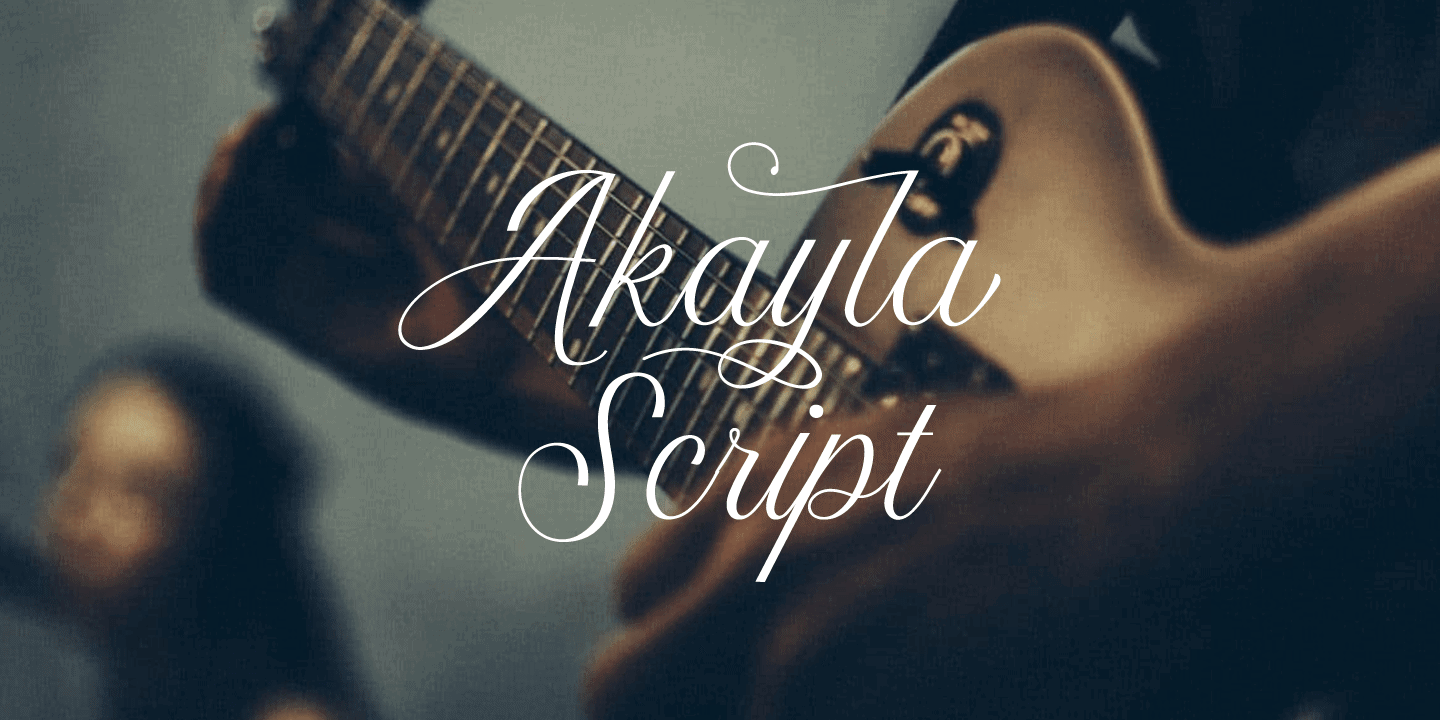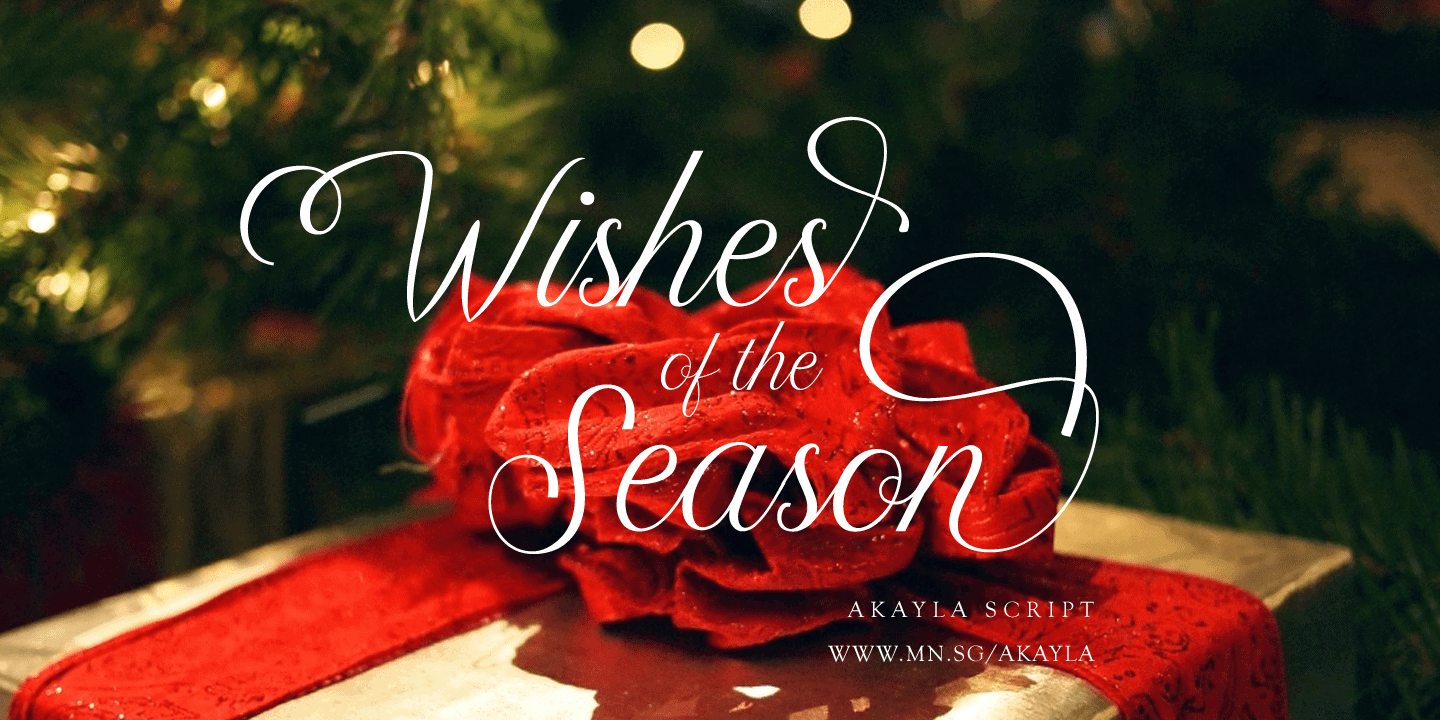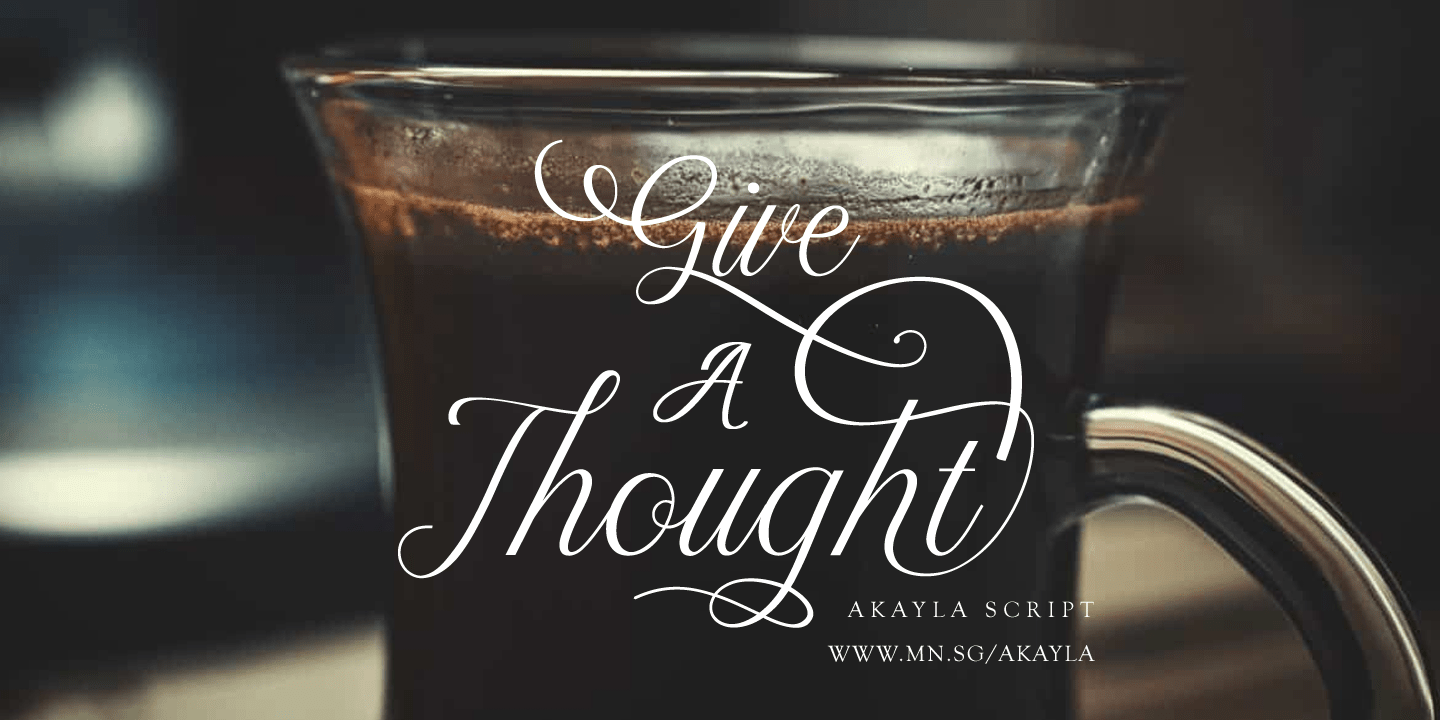
Akayla Script
Akayla Script is a beautiful, genuine calligraphy typeface. It is swashy, yet crafty, which contributes to giving any project a personal touch.
With multiple stylistic and swash alternates, this font is subject to great variety.
The family comes in a regular style, and with a bonus Deco style with more swashy and decorative letters. It contains ligatures, and has support for all Latin based European languages.